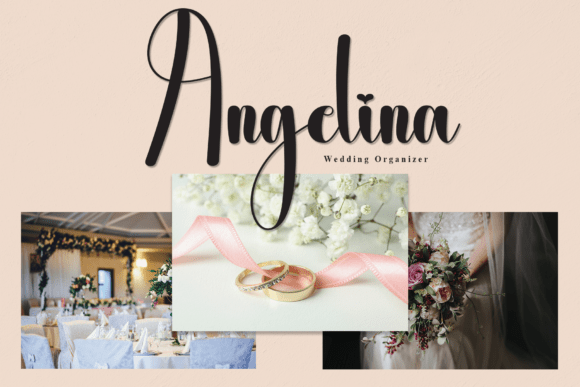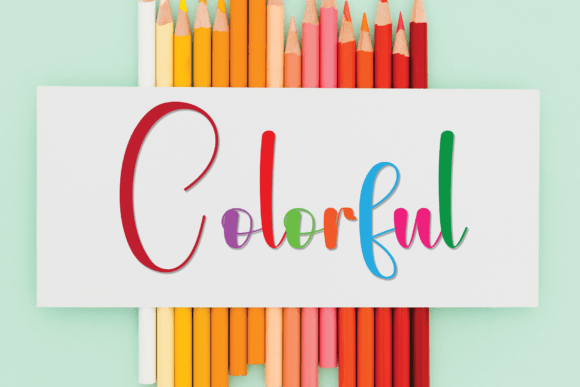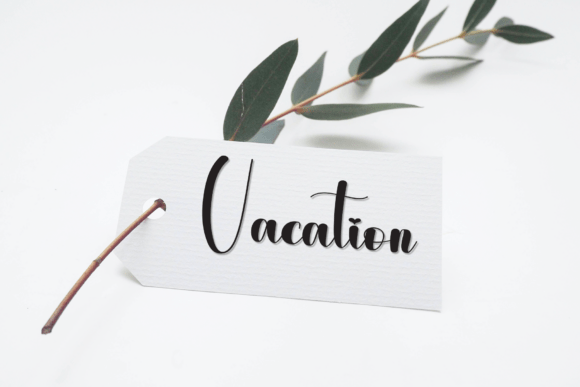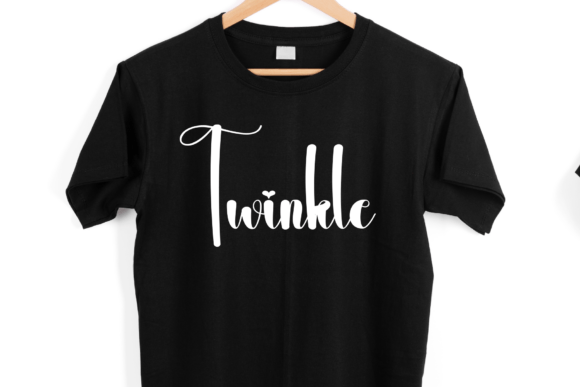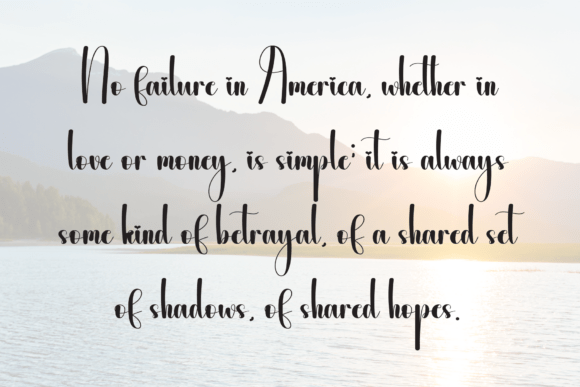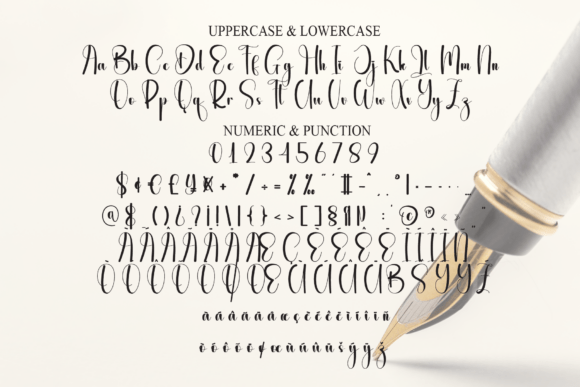
Bring Joy to Your Designs with the Daddy Calligraphy Font
As a designer, there’s no greater thrill than seeing your ideas come to life on paper. It’s the moment when your imagination transforms into a beautiful reality, and that’s exactly what happens when you add the Daddy Calligraphy Font to your design. This charming handwritten display font is more than just a font – it’s an experience that radiates friendliness and warmth with every stroke.
Whether you’re crafting wedding invitations, cards, or any other design that needs a touch of whimsy, the Daddy Calligraphy Font is the perfect choice. Its unique blend of sweet cuteness and exciting fun infuses your designs with a sense of joy and playfulness that’s hard to find elsewhere. As a designer, you’ll appreciate the value of this font in elevating your work and making it truly special.
Daddy Calligraphy Font Key Features
- Font Type: Handwritten Calligraphy Font
- Size: Supports a wide range of font sizes, from 8pt to 72pt
- Unique Characteristics: Features elegant, flowing lines and subtle flourishes, perfect for adding a touch of sophistication to designs
Daddy Calligraphy Font Review
I recently had the chance to work with the Daddy Calligraphy Font, and I must say, it’s a unique and charming addition to any design project. Here’s what I think:
- Handwritten feel: The Daddy Calligraphy Font has a beautiful, handwritten feel that adds a touch of elegance to any text.
- High-resolution graphics: The font is available in high-resolution graphics, making it perfect for print materials.
- Customization options: The font comes with various customization options, including different line widths and spacing.
- Limited language support: The Daddy Calligraphy Font may not be compatible with all languages, which can be a limitation for international designs.
- Not ideal for small text: The font’s handwritten style can make it difficult to read in small text sizes.
The Daddy Calligraphy Font is a beautiful and versatile addition to any design project. While it may have some limitations, its unique handwritten feel and customization options make it a great choice for designers looking to add a touch of elegance to their work. Overall, I would highly recommend this font to designers looking for a high-quality, handwritten font.
Tips for Getting the Most Out of the Daddy Calligraphy Font
To get the most out of the Daddy Calligraphy Font, try the following tips:
- Experiment with different font sizes and styles.
- Combine the font with other decorative elements, such as illustrations or graphics.
- Use the font for special occasions, such as weddings or birthdays.
The Daddy Calligraphy Font is ideal for:
- Wed